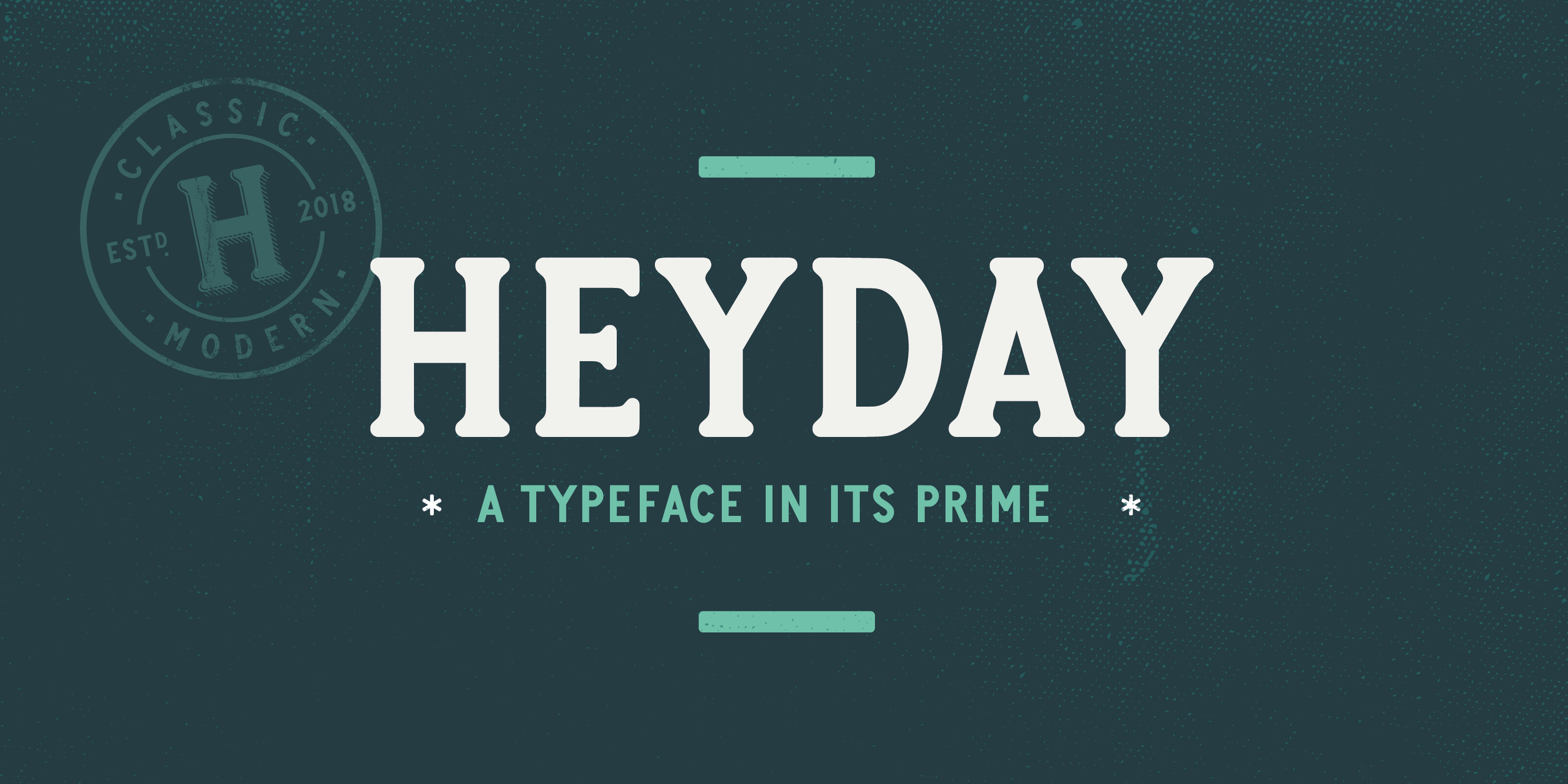
Heyday Font is perfect for celebratory event branding, golden anniversary materials, milestone achievement campaigns, nostalgic vintage promotions, peak performance marketing, success story publications, triumphant moment designs, and joyful celebration communications. This uplifting typeface excels in applications requiring celebratory spirit and peak achievement character that captures the essence of golden moments and triumphant success through jubilant visual energy and victorious appeal.
What makes Heyday Font exciting is its triumphant celebration energy that perfectly captures the essence of peak moments and golden achievements through joyfully crafted letterforms bursting with success. The font features celebratory character construction with victorious curves and peak proportions that instantly conveys themes of triumph, success, and golden moments perfect for brands celebrating achievements and milestone experiences in competitive markets.
The Heyday Font family includes celebratory weights and triumphant variations with success-inspired styling elements, offering designers comprehensive tools for creating victorious achievement compositions. The family provides consistent celebratory aesthetic with varying triumph levels for versatile success communications and milestone branding projects requiring genuine peak character and golden achievement appeal.
The triumphantly crafted letterforms of Heyday Font ensure excellent readability while maximizing celebratory charm and peak achievement appeal, making it ideal for success marketing, milestone communications, and triumphant brand presentations. This jubilant typeface combines celebration heritage with contemporary technical standards for outstanding performance in modern design environments requiring authentic triumphant character and golden moment presence.